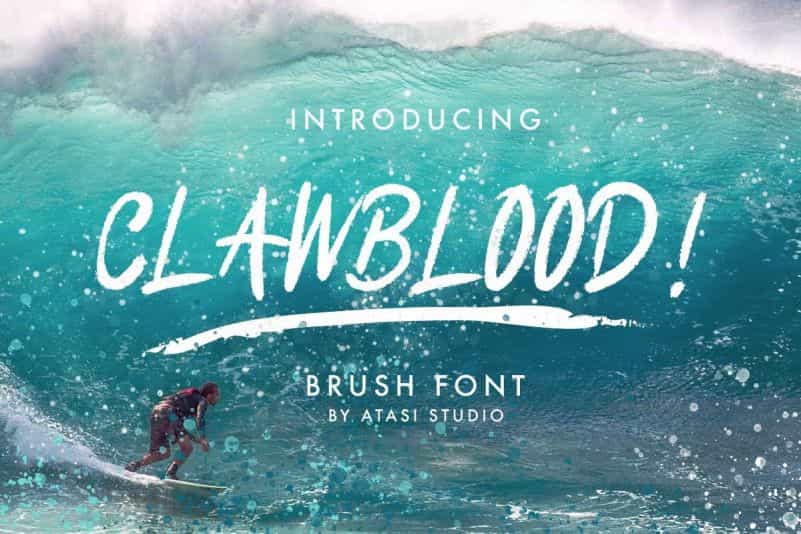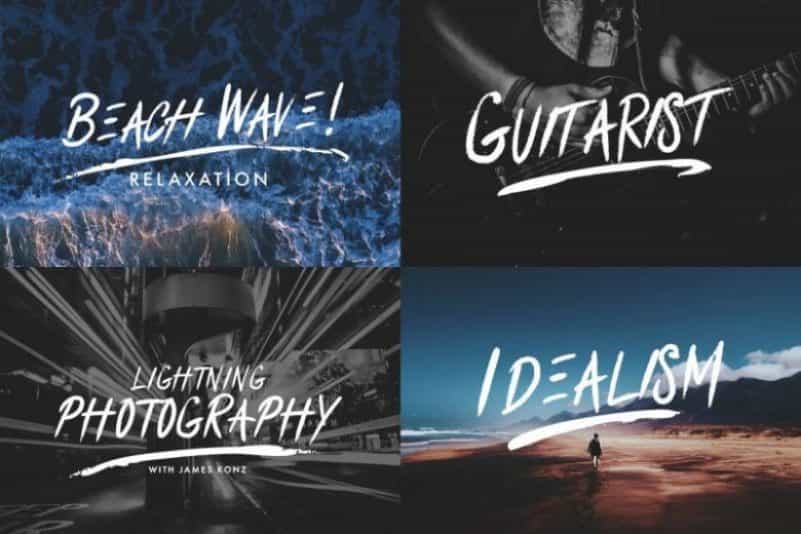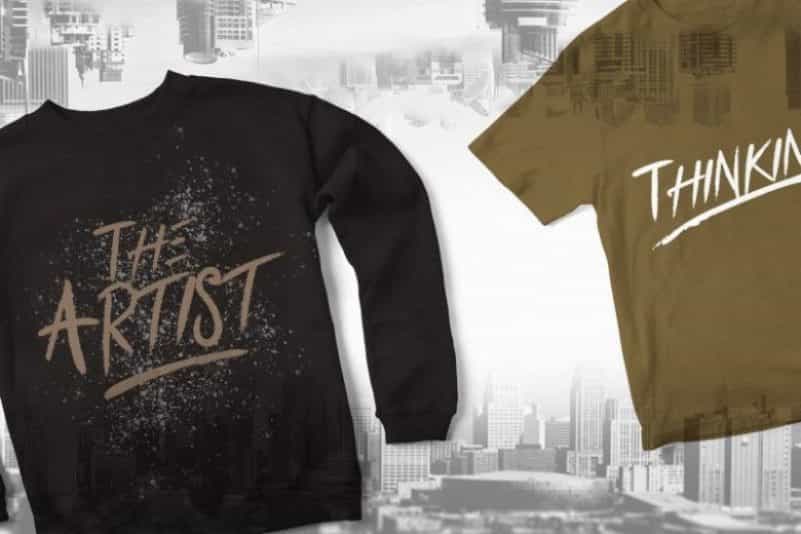
The Clawblood Font is a font that has been designed by hand and has the appearance of handwritten type of lettering. Clawblood Font is now available and suitable for your logo creation, musical work, social media content, event promotion, branding, product labeling, calligraphy, merchandise, etc.